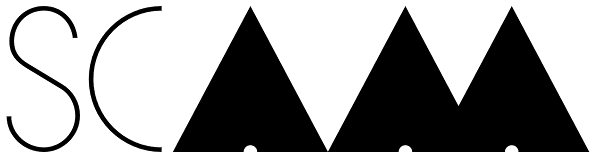
Scam
Scam is a discordantly eccentric geometric display face with exaggerated, alternating forms. Letters variate in extremes between bold and blacked-out and strictly linear, creating unpredictably unique letter pairings. Stylistically, Scam pushes the...